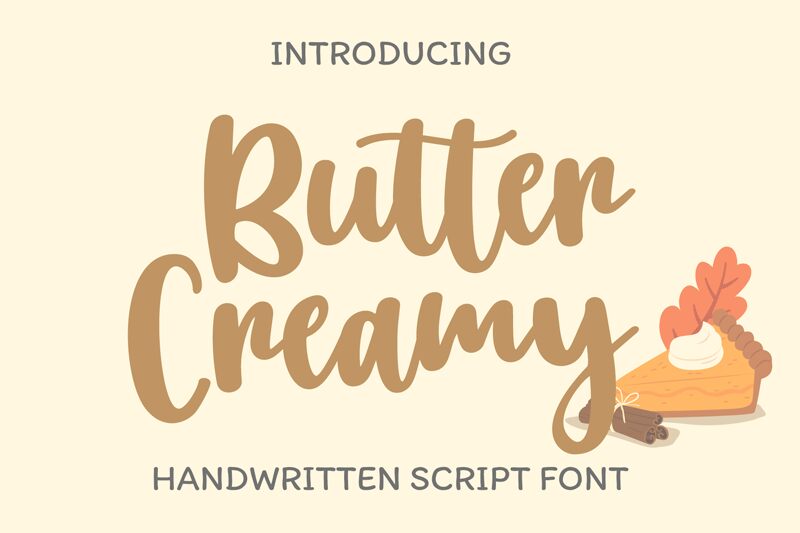
Butter Creamy, the latest addition to Bearytype's font collection, is a beautifully crafted handwritten marker font that perfectly captures the essence of casual and carefree handwriting. With its semi-bold weight, Butter Creamy stands out from other script fonts and adds an extra touch of personality to any design project. This versatile font is suitable for various creative projects such as branding, social media graphics, product packaging, and much more. So whether you're looking for a fun and playful vibe or a more sophisticated look, Butter Creamy has got you covered!